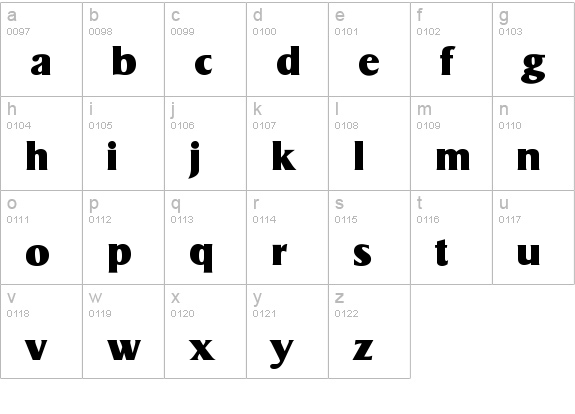
Sigvar-Heavy is a heavy, high-impact variant in the Sigvar typeface family \xE2\x80\x94 well suited to high-impact headlines, posters, and display advertising.
Introducing Sigvar-Heavy, a bold and powerful typeface that demands attention. With its robust and commanding presence, this font is perfect for making a strong visual impact in any design project. Sigvar-Heavy exhibits a unique blend of strength and elegance, making it versatile for a wide range of applications. Whether you're creating eye-catching headlines, striking logos, or impactful posters, this font will ensure that your message is delivered with maximum impact. The carefully crafted letterforms of Sigvar-Heavy exude a sense of confidence and authority. Its thick and bold strokes lend a timeless appeal, while the subtle curves and sharp edges add a touch of modernity. This harmonious balance makes Sigvar-Heavy an ideal choice for both traditional and contemporary designs. One of the most compelling aspects of Sigvar-Heavy is that it is freely available to download at FontsMarket.com. This means that you can bring this exceptional typeface into your creative arsenal without any cost. The accessibility of Sigvar-Heavy allows designers, artists, and enthusiasts alike to explore the endless possibilities that this font offers. With its extensive character set, including uppercase and lowercase letters, numerals, punctuation marks, and special symbols, Sigvar-Heavy provides all the tools you need to bring your design visions to life. Its versatility extends to various languages, ensuring that your message can be conveyed effectively on a global scale. Embrace the boldness and versatility of Sigvar-Heavy, and let it elevate your designs to new heights. Download this captivating typeface for free at FontsMarket.com, and unleash your creativity with a font that is as powerful as it is accessible.